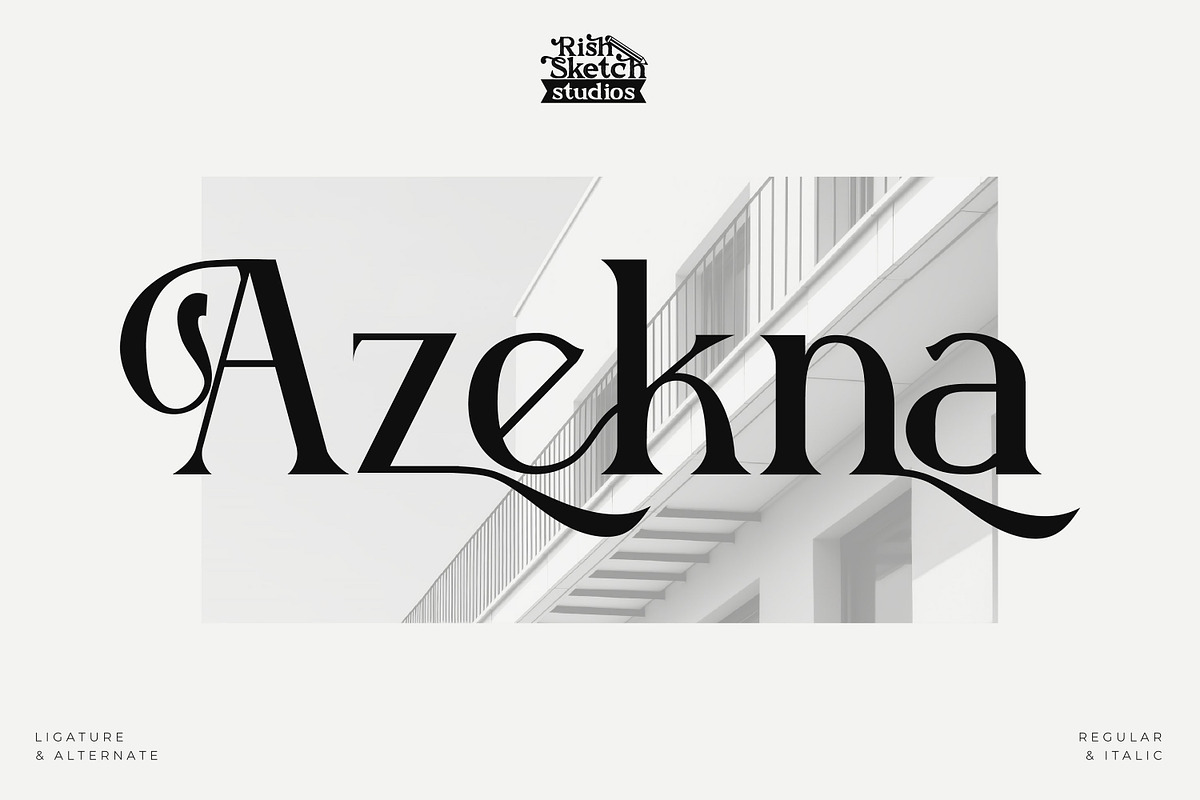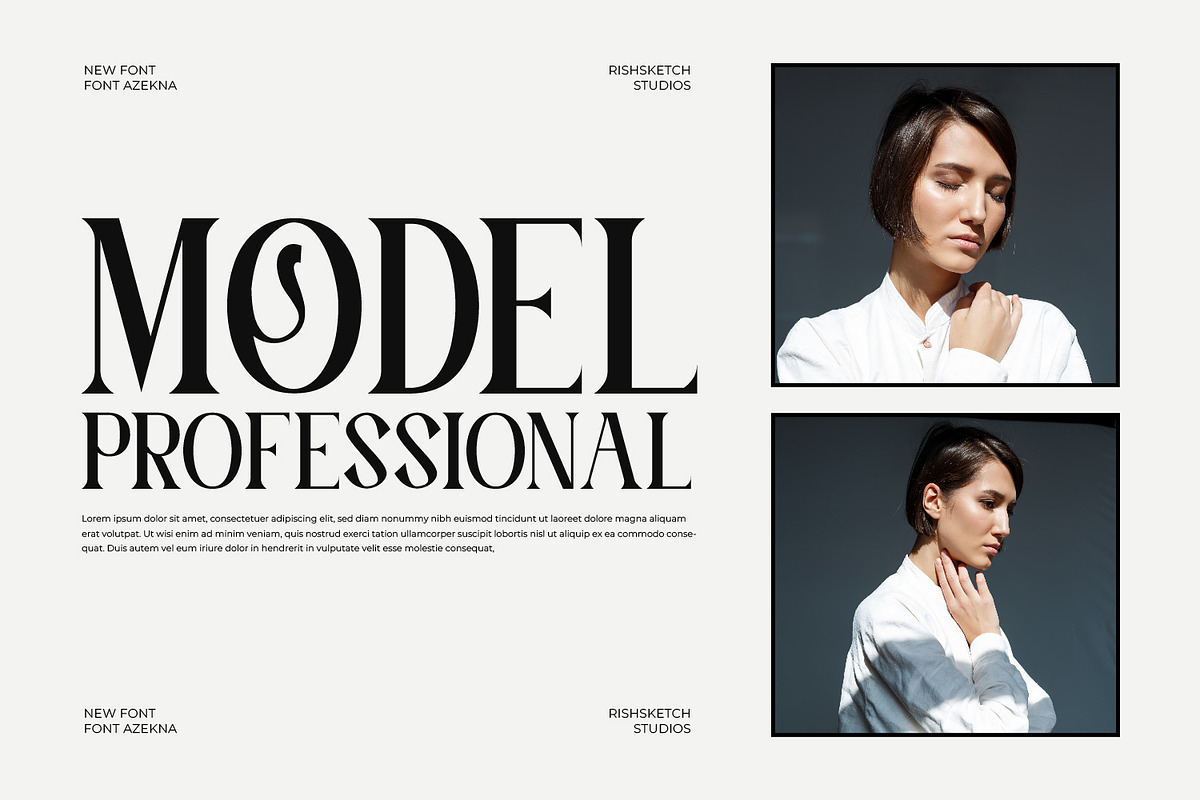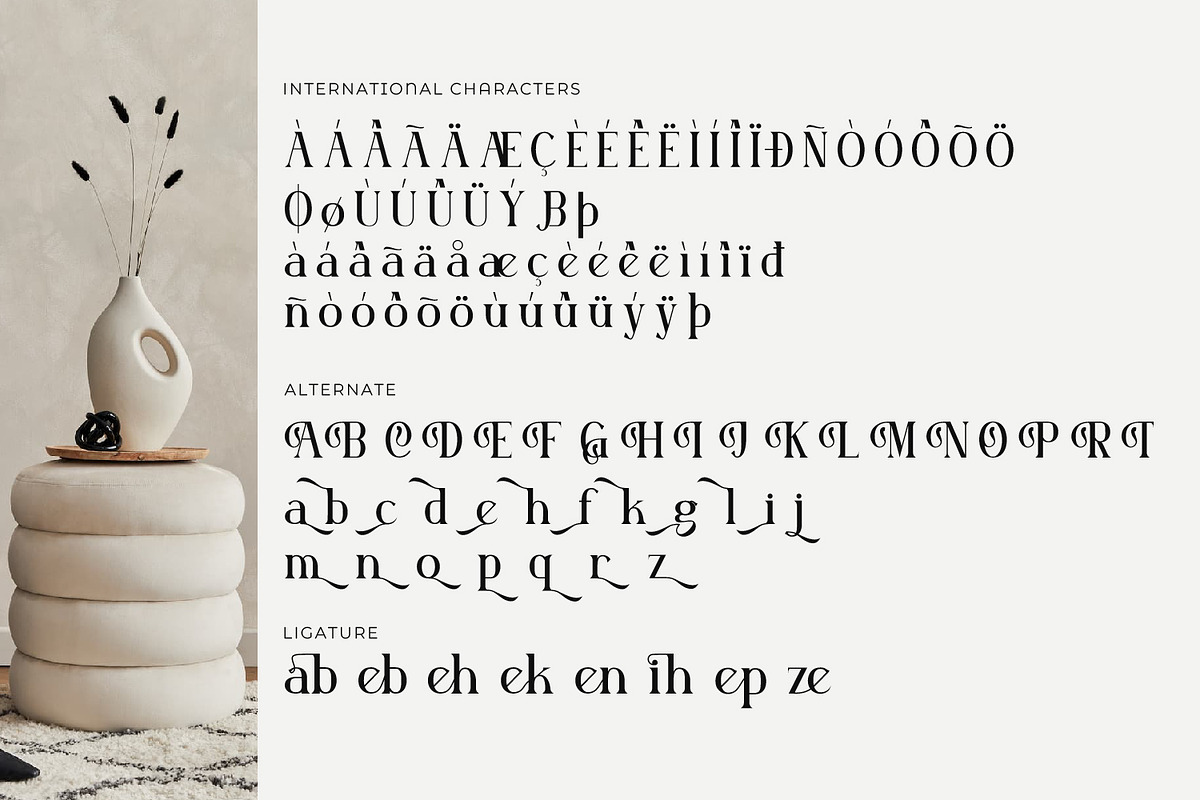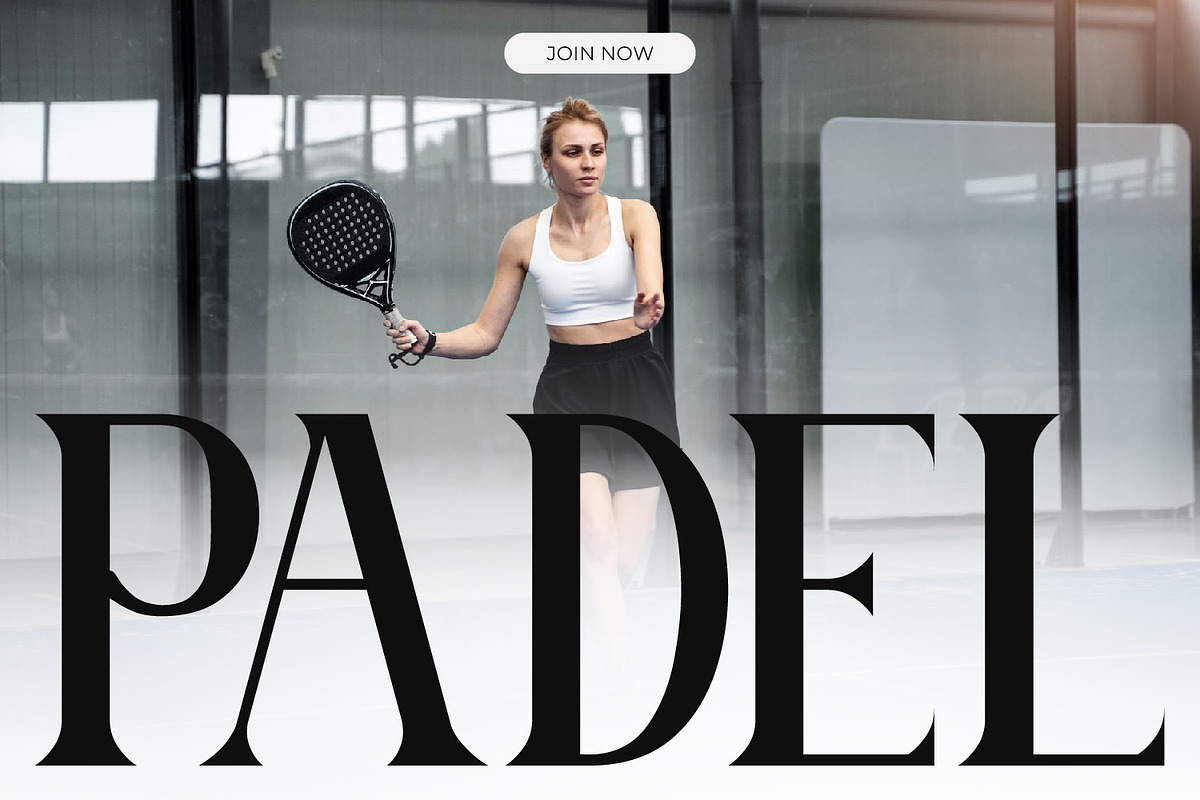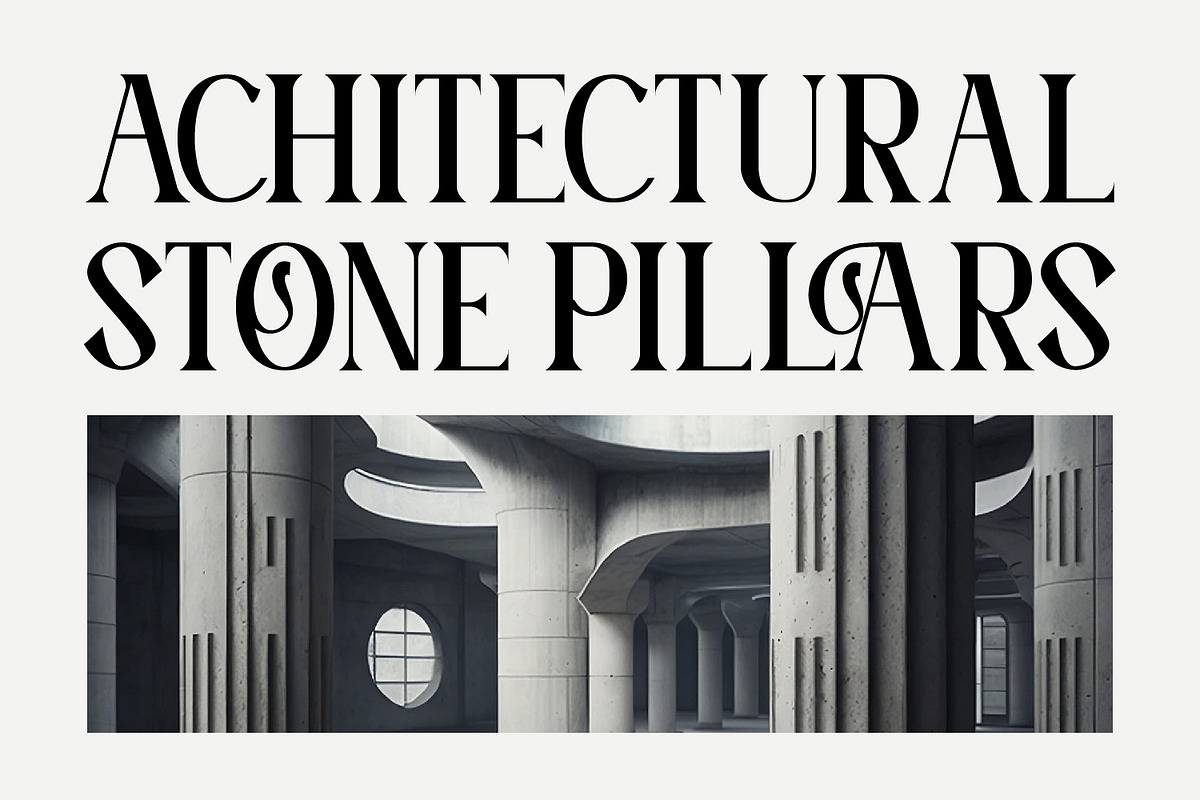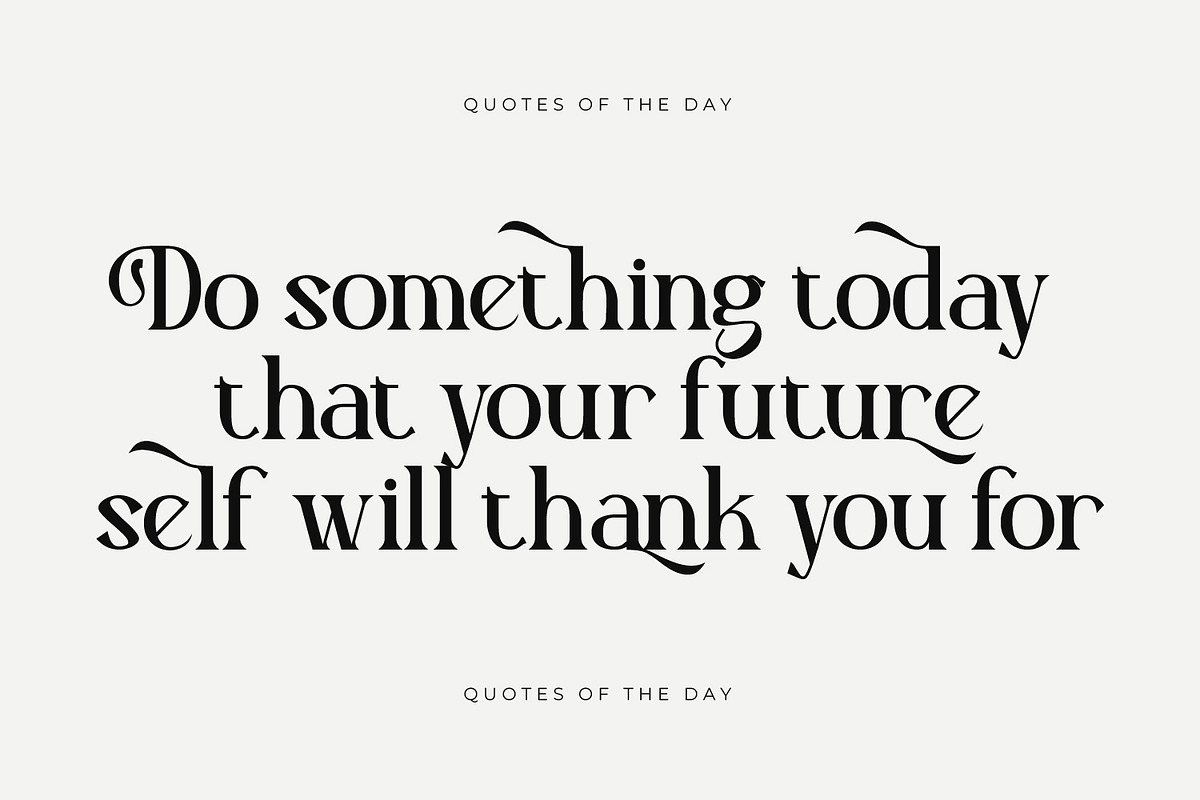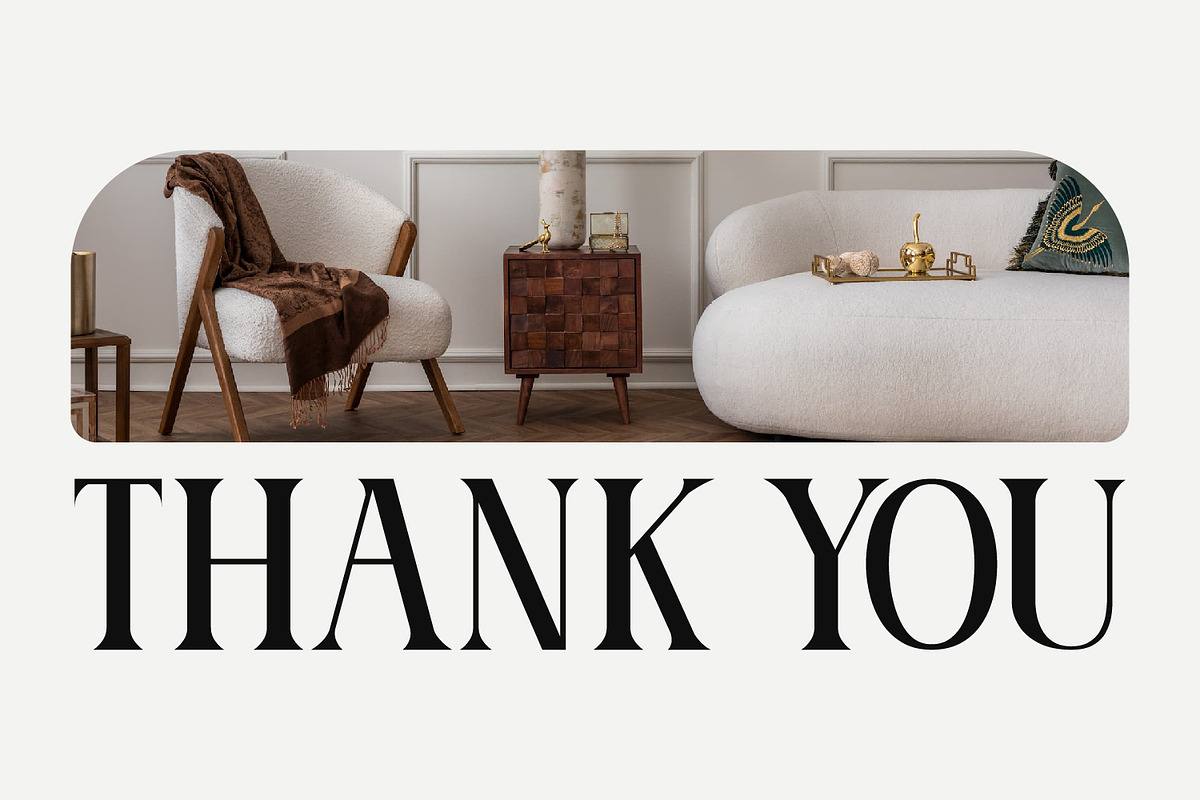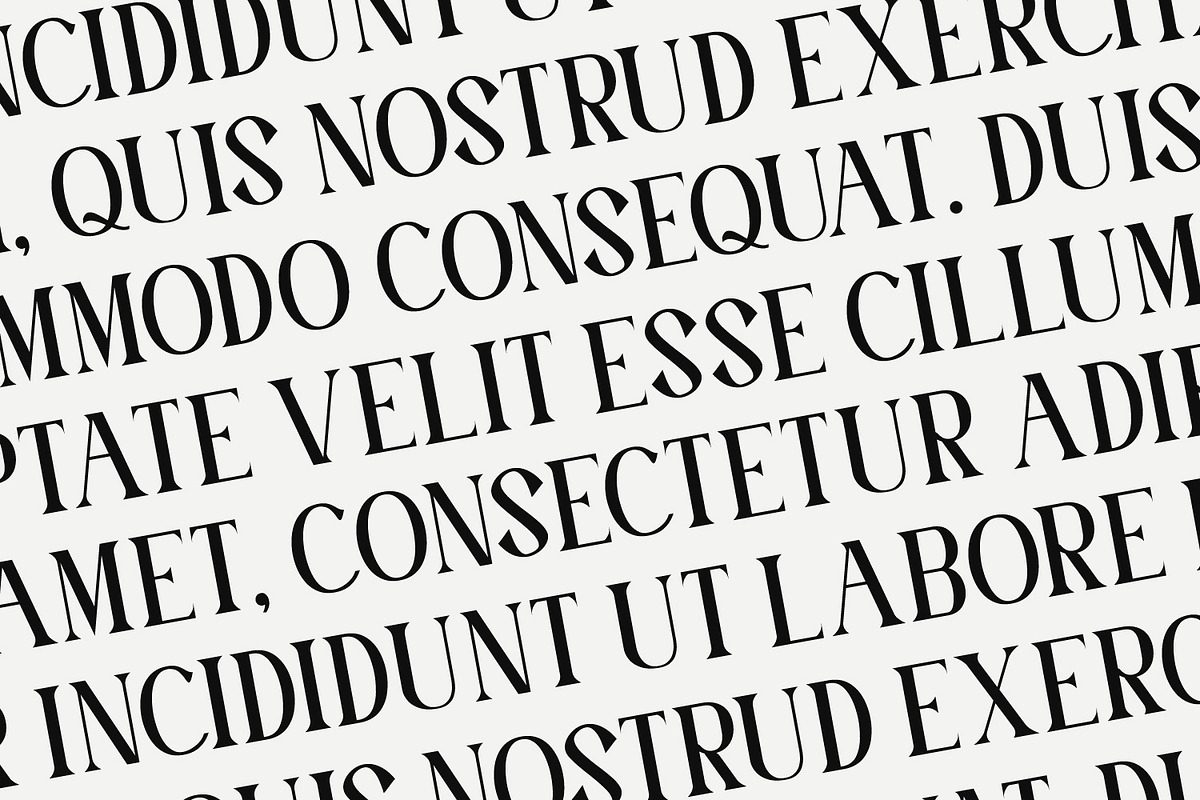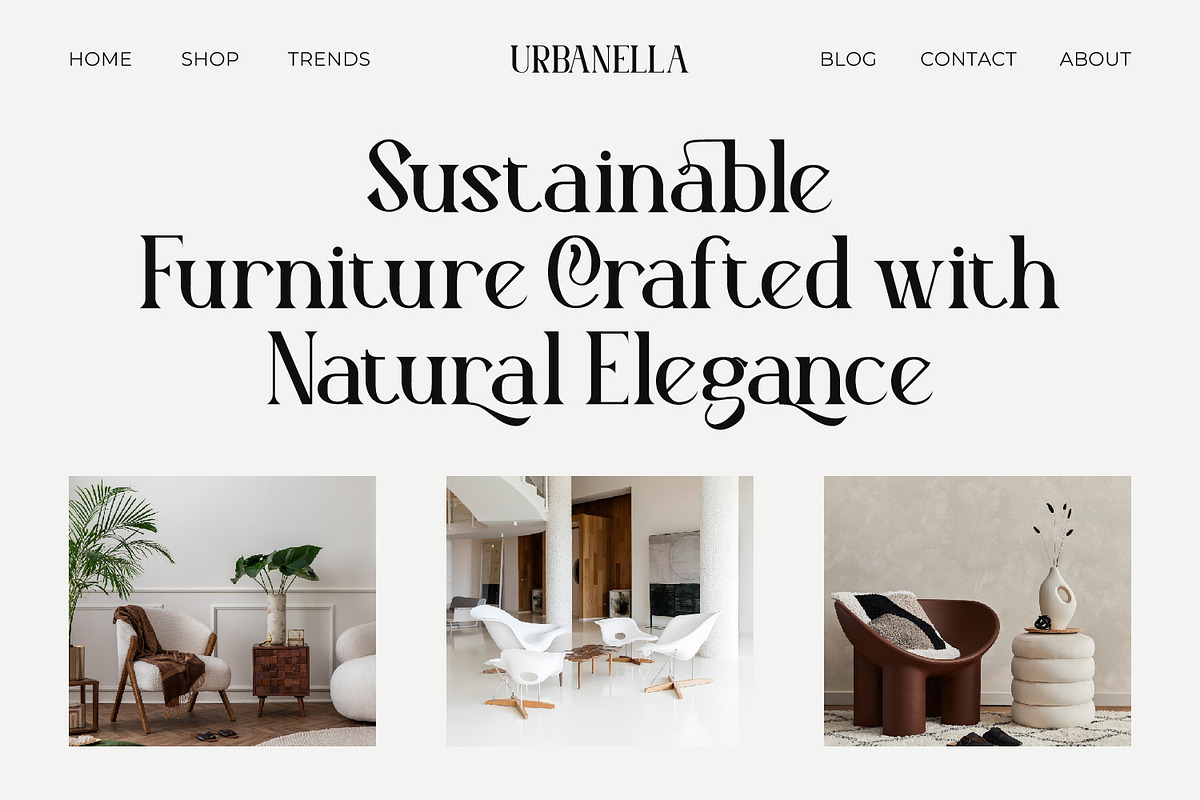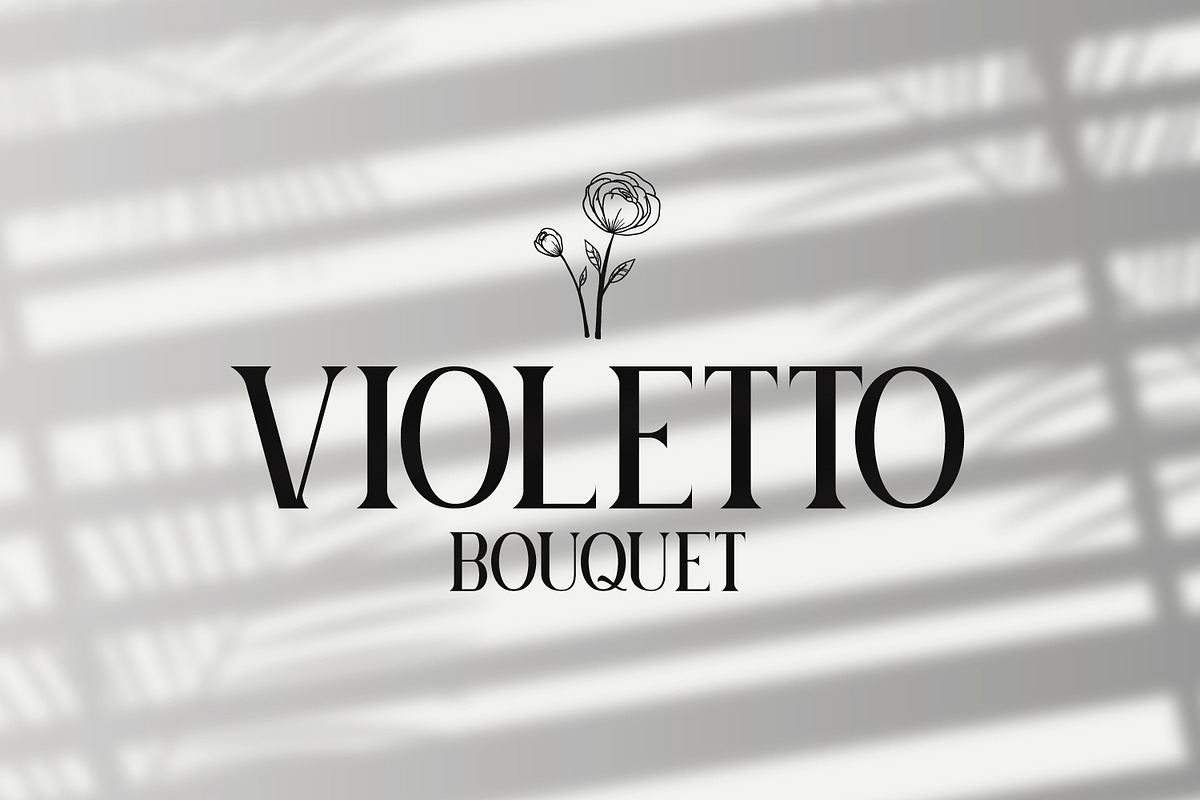
Azekna - Modern Serif Font
Azekna - Modern Serif Font, from Rishsketch Studios, is a premium Modern Serif Font, perfect for any project that requires a distinctive, and premium feel.
Ligature, Alternate, & Multilingual